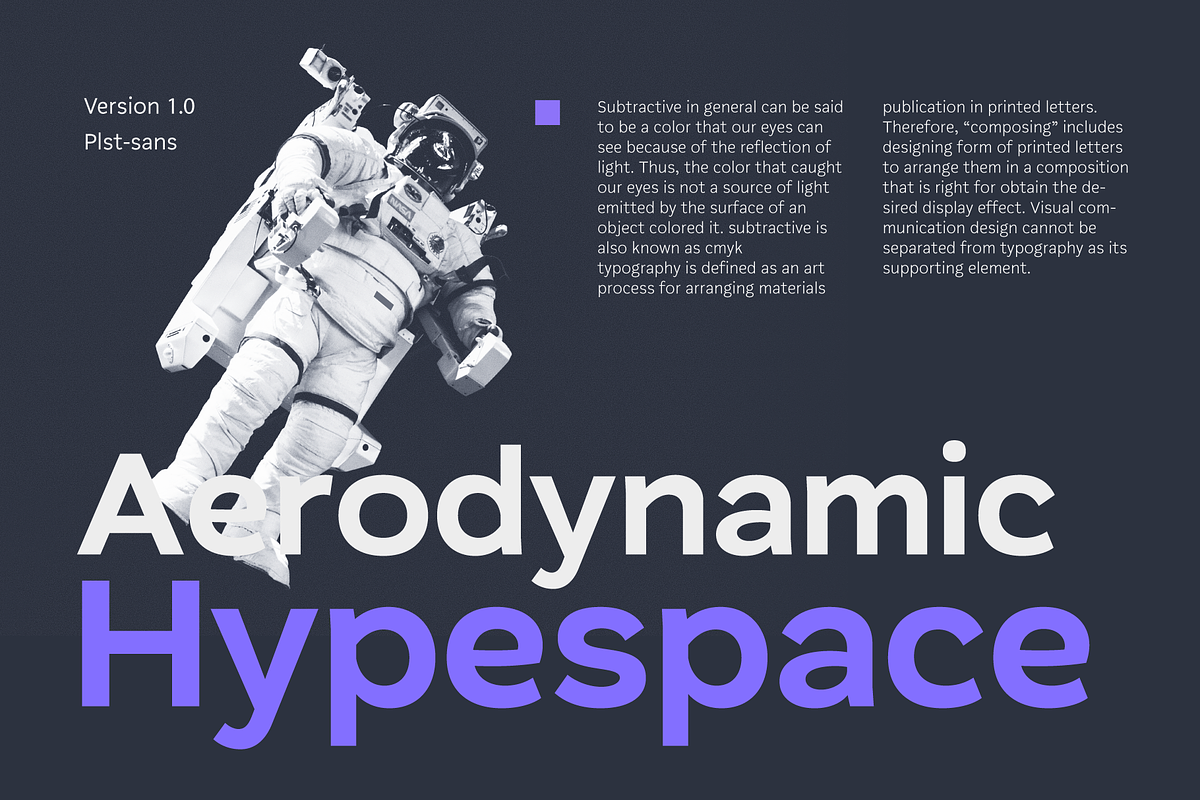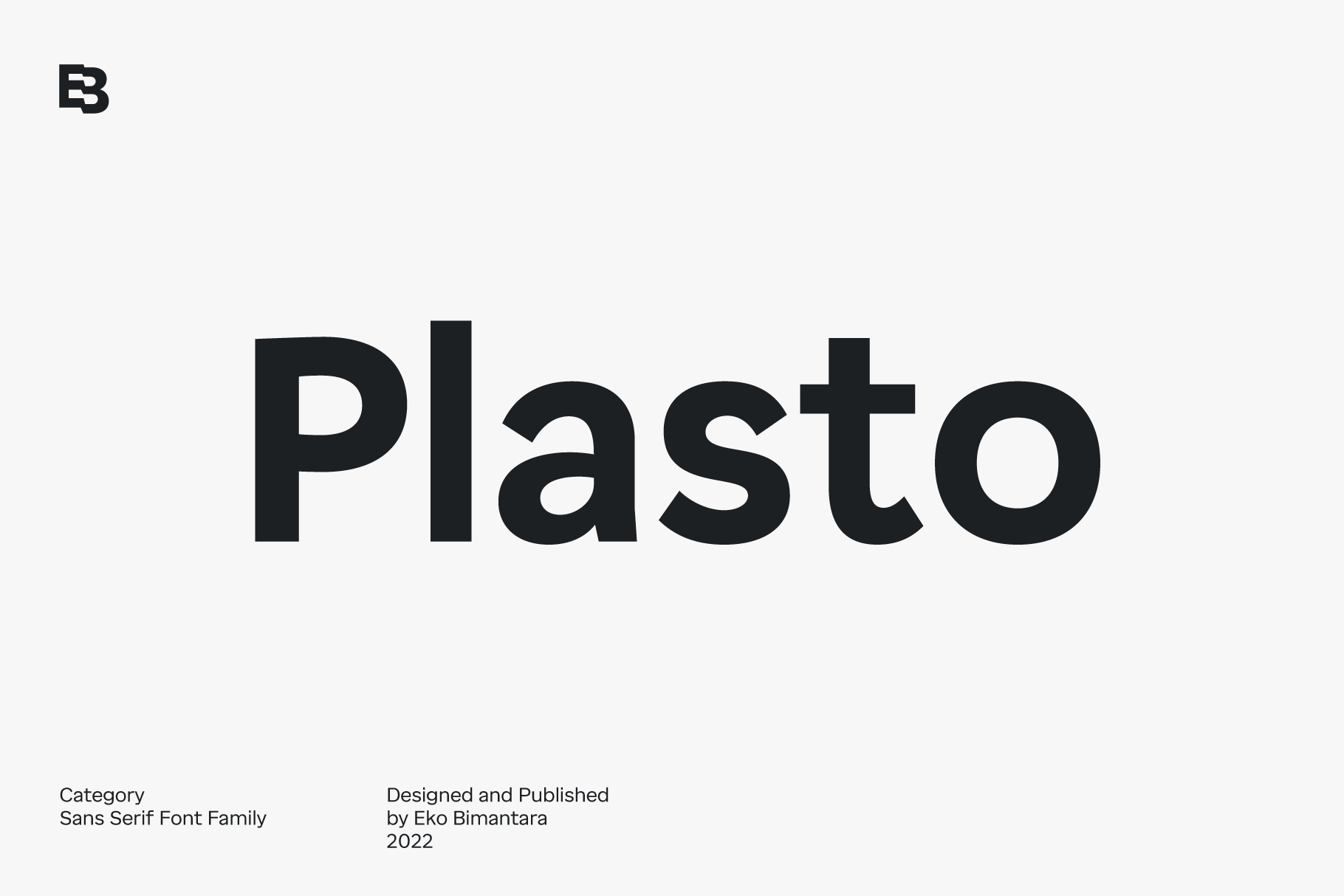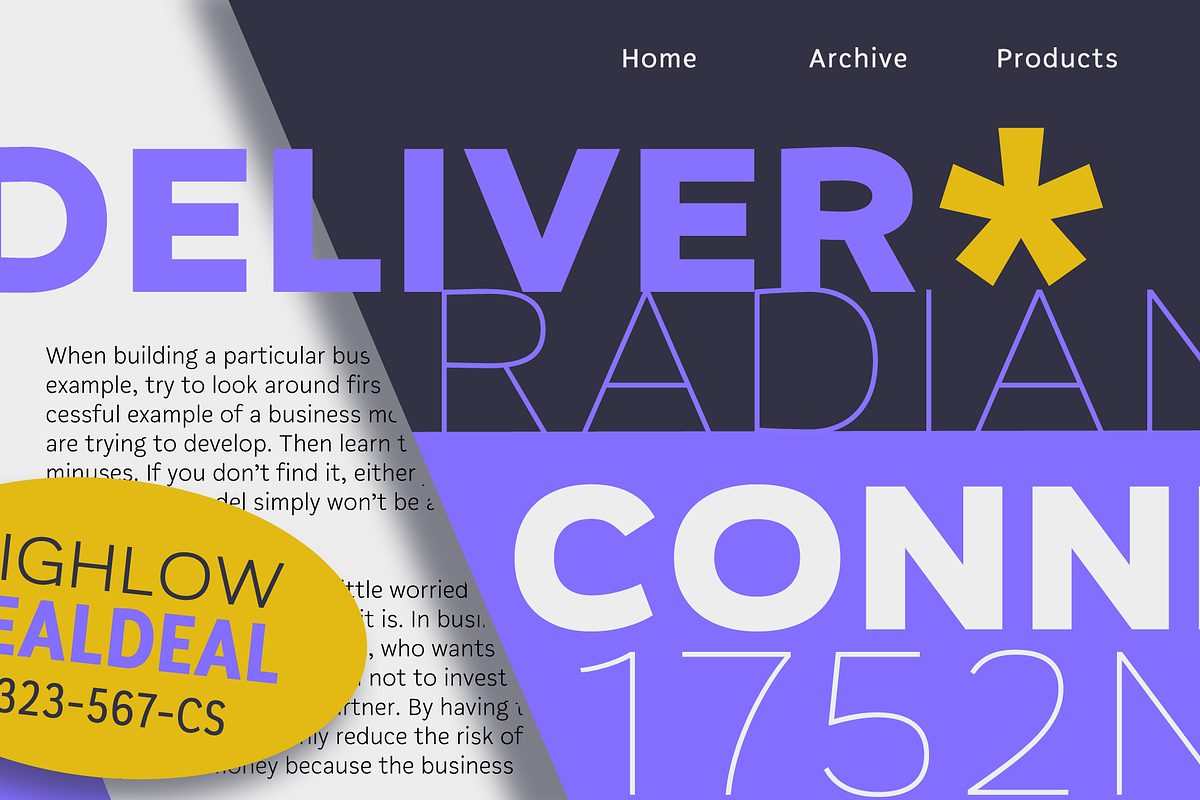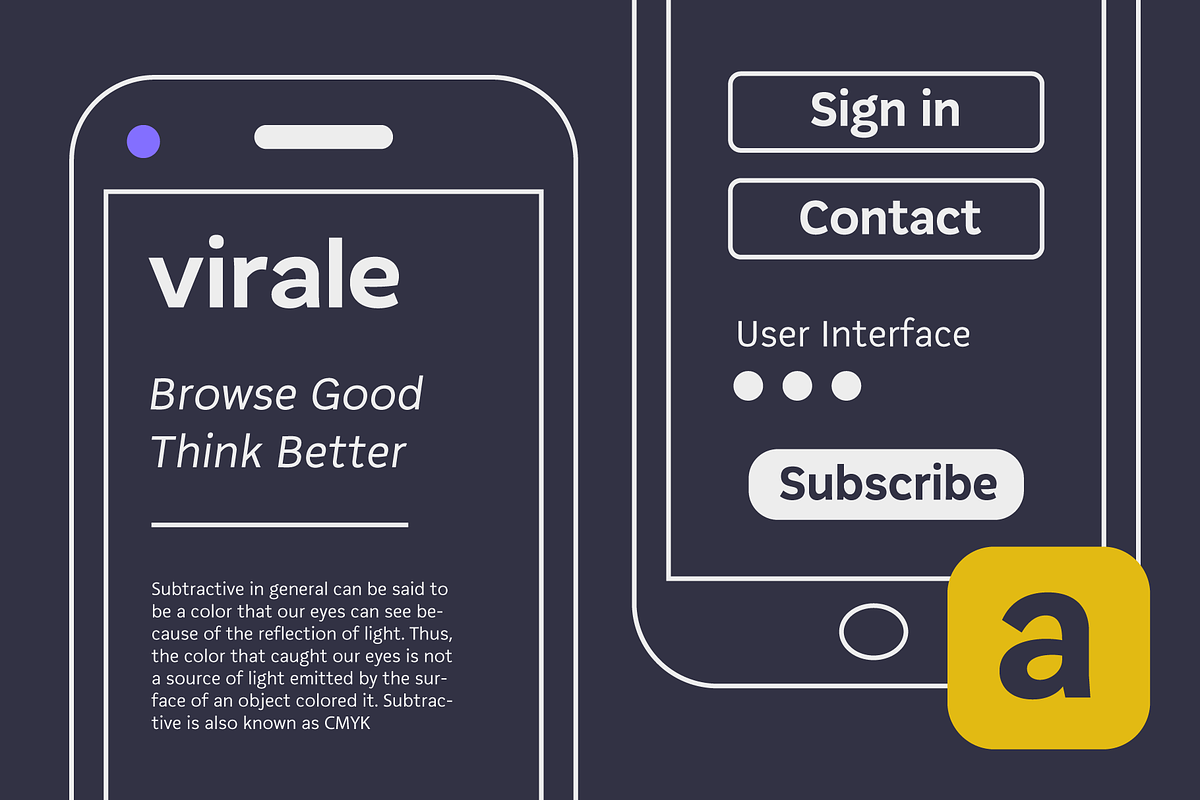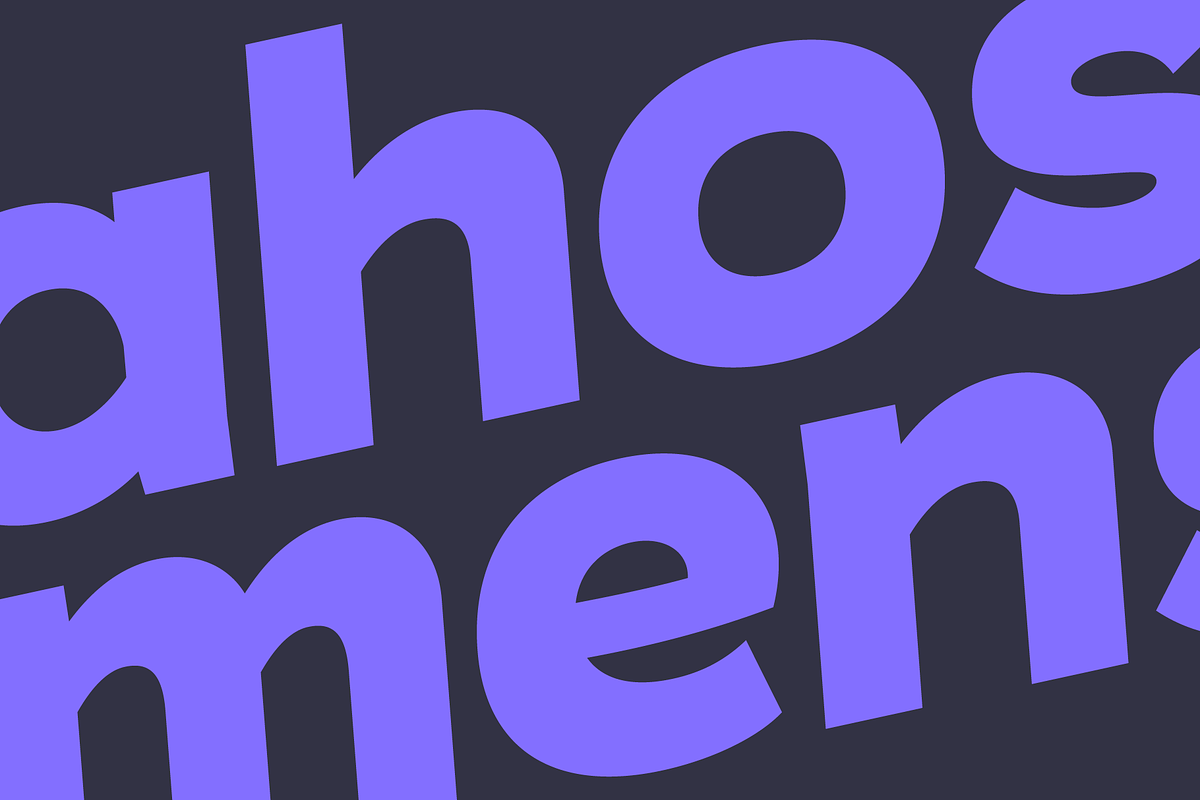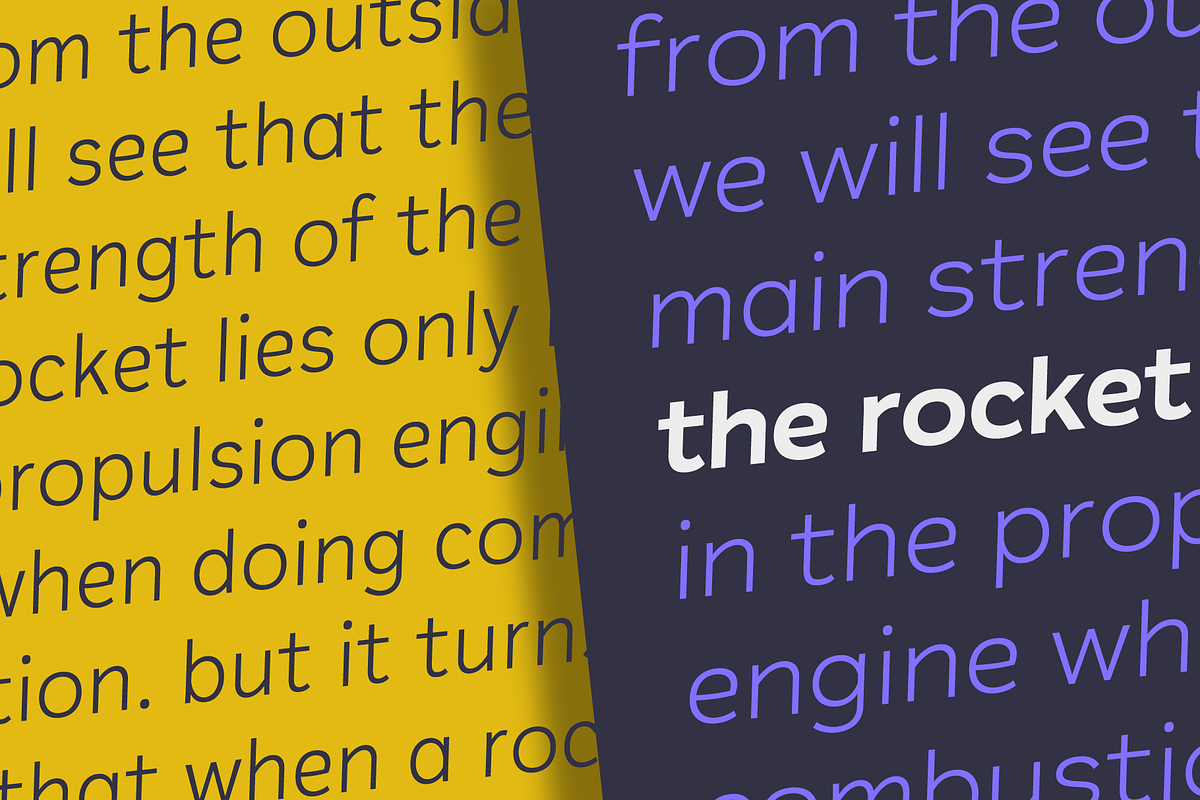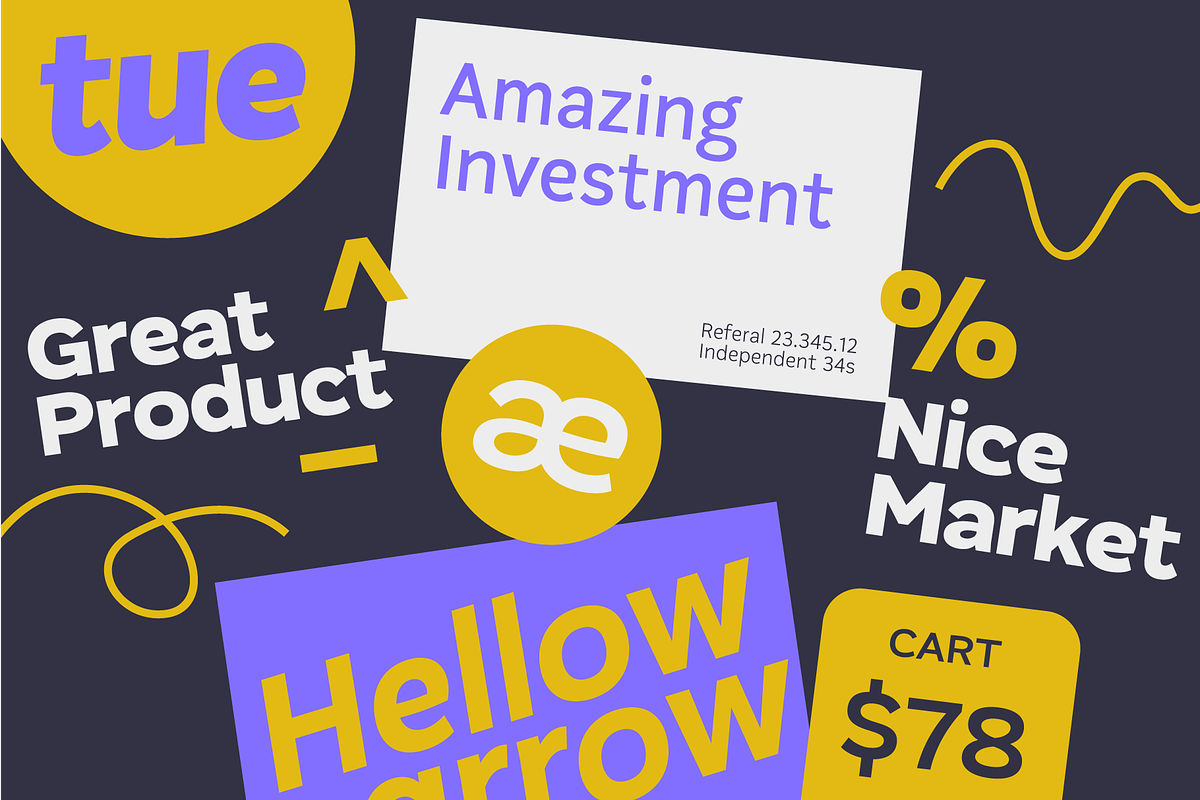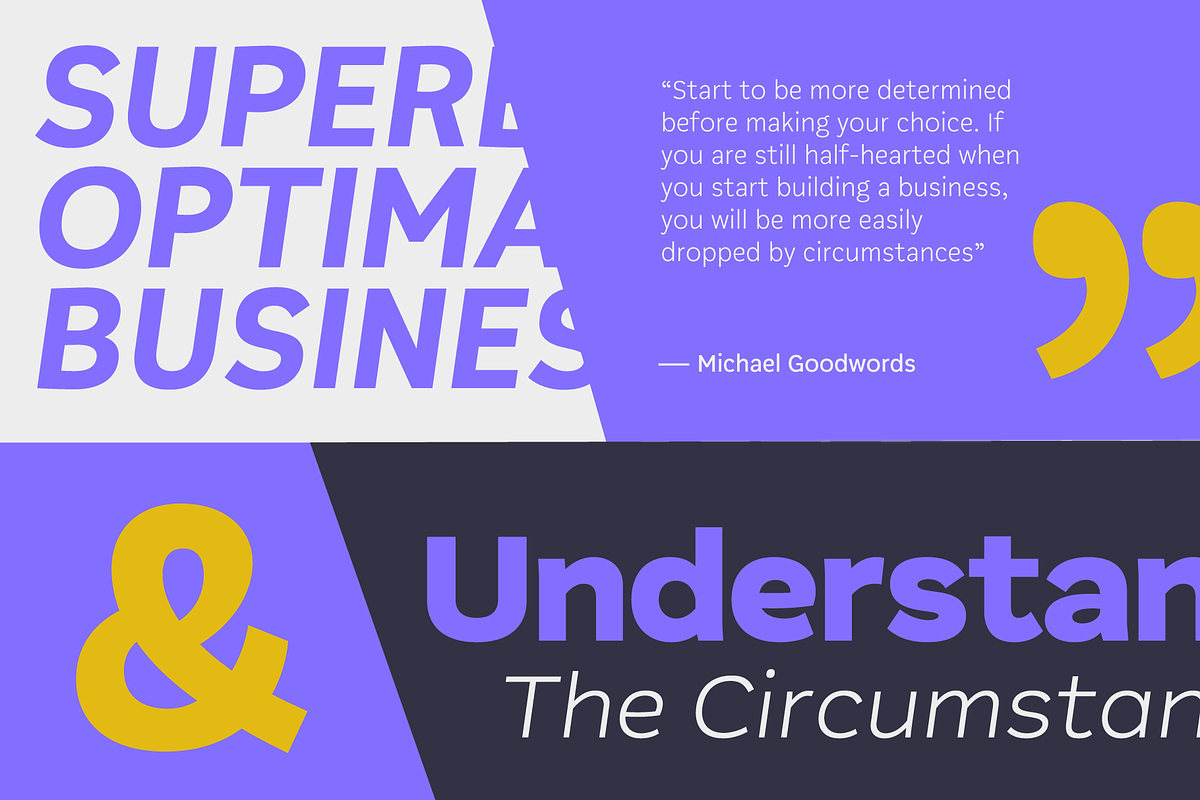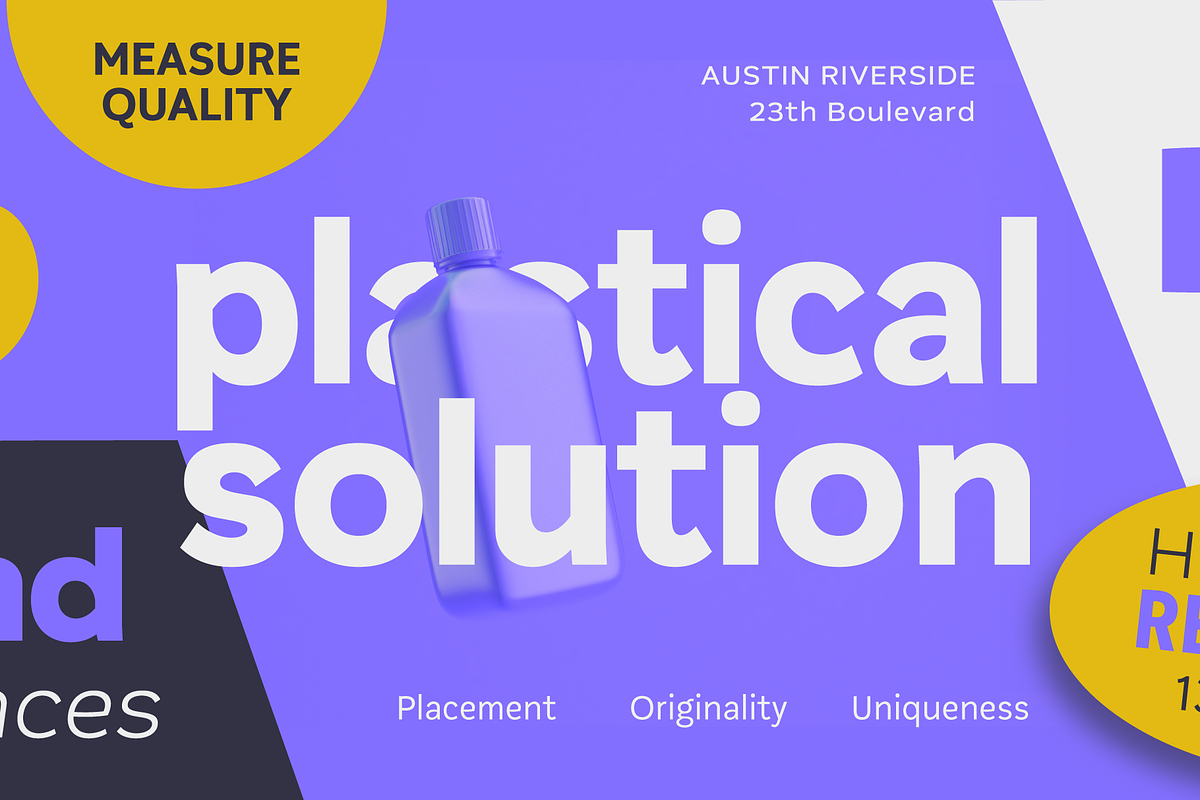
Plasto: Sans Family of 54 Fonts
Plasto is a complete grotesk sans serif family. The quirky letterforms and its slight width variation characterized the typeface as fun and playful as "plastic" in a graphic layout, fit for various design spaces, fit for both informal or functional purposes, fit for large display and also small text. Plasto complete family contains 54 styles with two axes; Weight and Width. The weight consists of 18 styles from Thin to Black, and the width consists of 3 styles, condensed, normal and expanded. Plasto perfect for logo, branding, website, advertising, products, apps and various creative and design purposes.